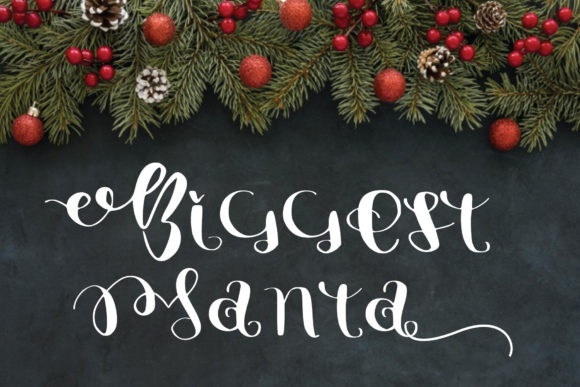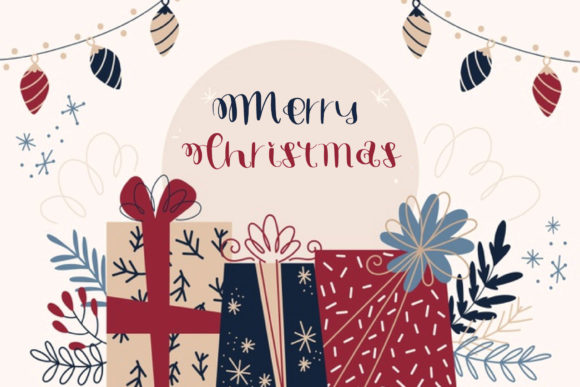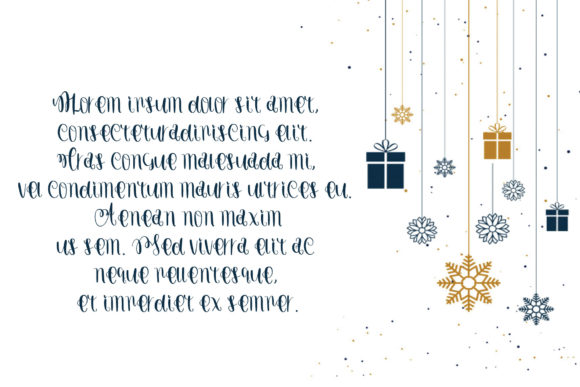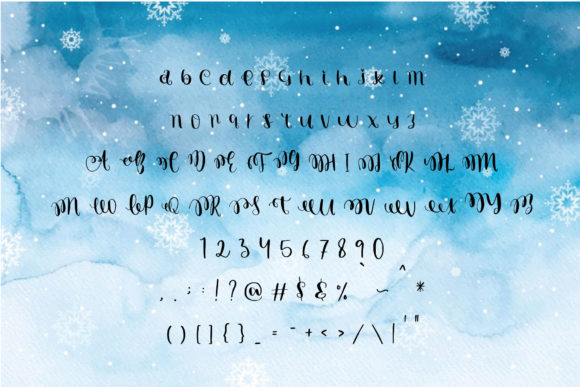
Biggest Santa Font
About Biggest Santa Font
Biggest Santa is a delicate and elegant handwritten font. Its distinct and well rounded letters make this font a masterpiece. Fall in love with its incredibly versatile style and use it to create spectacular designs!